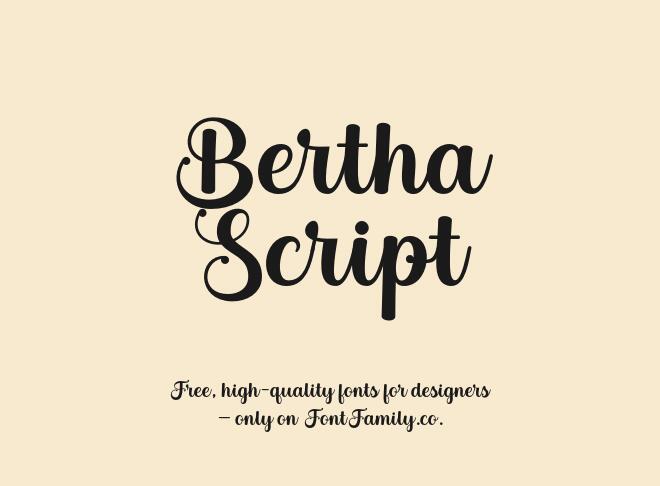
Bertha Script Font
Bertha Script Font, created by Creative Foundry, is a beautiful handwritten typeface that exudes elegance and sophistication. With its decorative elements and flowing lines, this font is perfect for creating eye-catching logos, wedding invitations, and personalized branding. Its distinctive character set sets it apart from other script fonts, making it a unique choice for designers. The Bertha Script Font is versatile and adaptable, working well in both print and digital designs. Its free-flowing nature is reminiscent of traditional calligraphy, yet it maintains a modern edge that allows it to fit seamlessly into contemporary designs. This font is free for personal use and is an excellent addition to any designer's toolkit. Its timeless elegance and unique charm make Bertha Script Font a must-have for those seeking to inject a touch of class into their work.